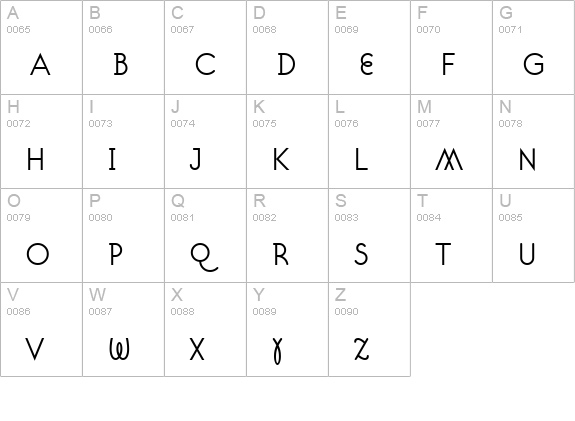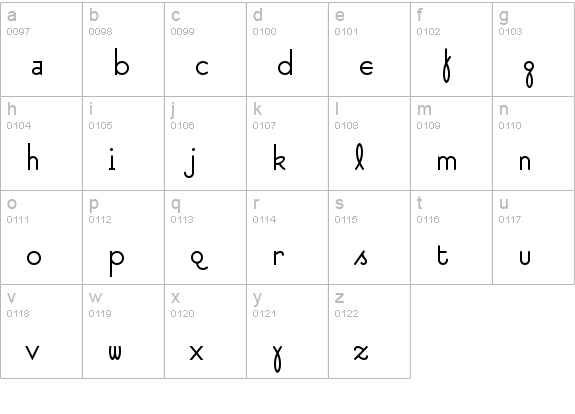
SuburbanLight Regular is the standard, neutral variant in the SuburbanLight typeface family \xE2\x80\x94 well suited to general body text, paragraphs, and standard typographic work.
SuburbanLight Regular font is a delightful and versatile typeface that exudes a sense of modernity and sophistication. Its clean lines and balanced proportions make it perfect for a wide range of design projects, from branding to editorial design. This elegant font features a subtle touch of warmth and friendliness, making it ideal for creating inviting and engaging text. The best part? SuburbanLight Regular font is available for free download at FontsMarket.com. This means that you can easily access this stunning typeface without any cost, allowing you to add a touch of style to your projects without breaking the bank. Don't miss out on the opportunity to enhance your designs with this beautiful and highly readable font. Download SuburbanLight Regular today and elevate your typography game!